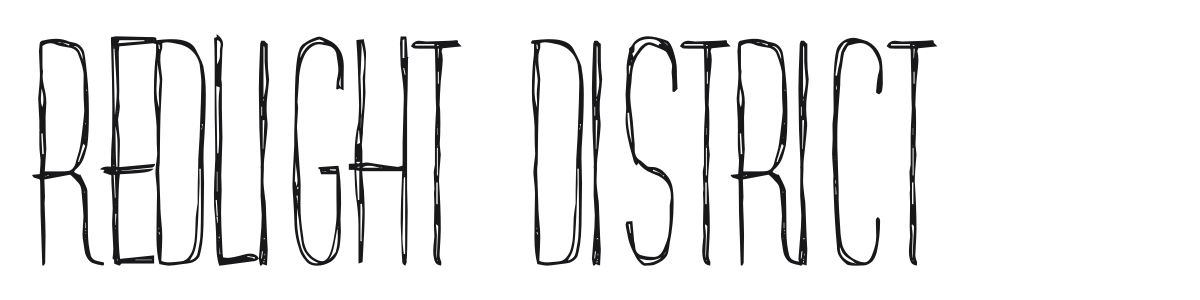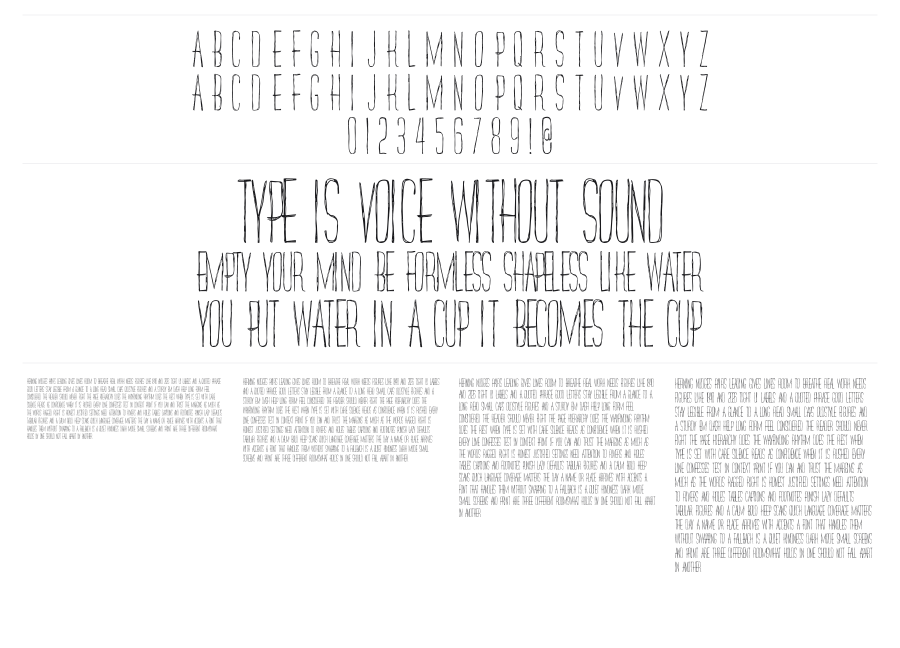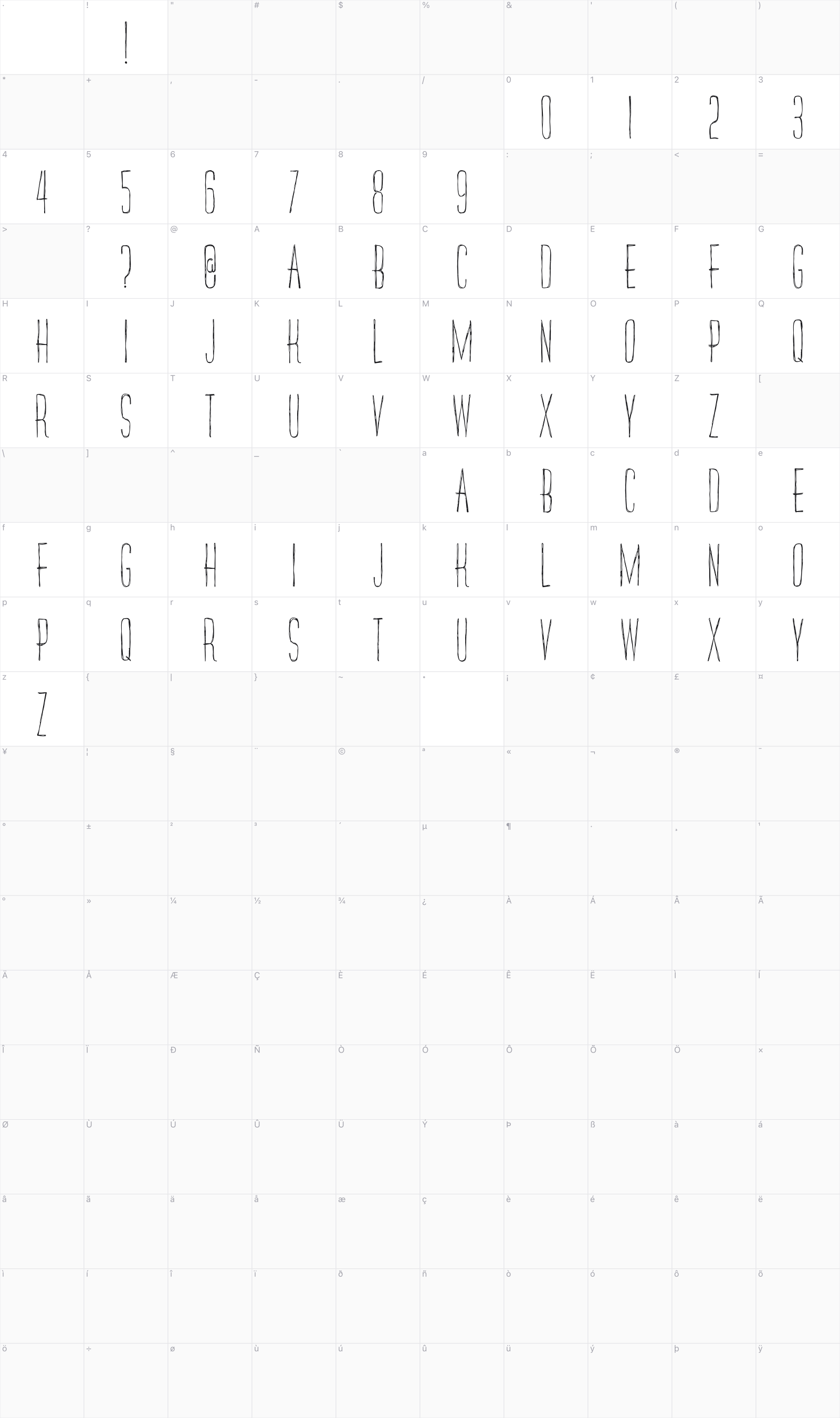
Redlight District
Redlight District is an ultra-condensed distressed display face built from thin, splintered strokes that look hand-scratched rather than drawn. Each character is constructed from overlapping hairlines that fracture into texture, giving the whole word a raw, underground energy. Strong for posters, album art, or any headline context that needs attitude.